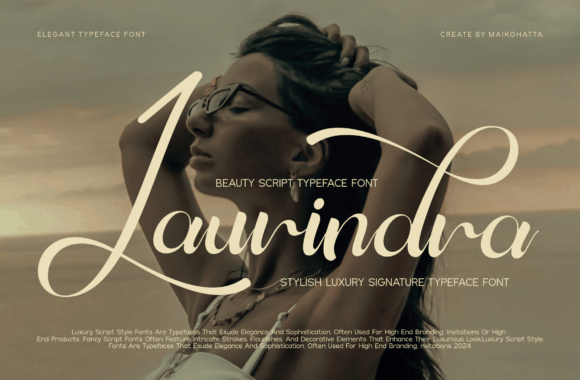
Laurindra Font: Elegant Script for Luxury Branding & Logo Design
About the Laurindra Font
Get ready to be inspired by Laurindra Font, a fresh and dynamic typeface for modern creators. Introducing our new product **Laurindra** – Luxury Script
**Laurindra** – is a very flexible choice and can be used in a variety of design contexts. Its ability to provide a clean, professional, contemporary look and its simplicity and visual appeal make this font good for use in the world of graphic design and modern typography.
Laurindra excels in headline treatments, short paragraphs, and branding applications where a touch of elegant sophistication is desired. It’s particularly well-suited for logos, invitations, and packaging for luxury goods or high-end services. However, its delicate stroke weight makes it less suitable for body text or UI elements requiring high readability at smaller sizes.
Its inherent elegance is best complemented by pairings with clean sans-serif fonts like Montserrat or Open Sans for a modern feel, or a classic serif like Garamond or Didot for a more traditional approach. For a contrasting yet harmonious combination, consider pairing it with a geometric sans-serif like Futura.
Laurindra projects a sophisticated and refined personality, conveying a sense of luxury and understated elegance. Avoid using it in contexts requiring a bold or playful tone.
Laurindra Font Usage Examples
Laurindra Font Example